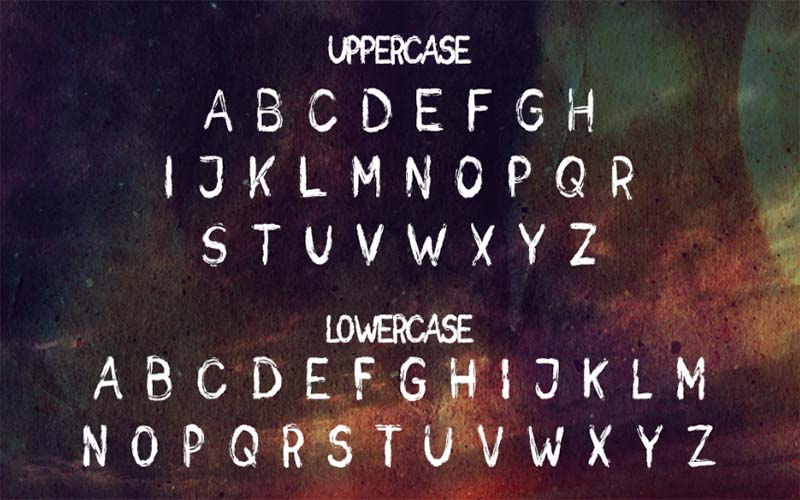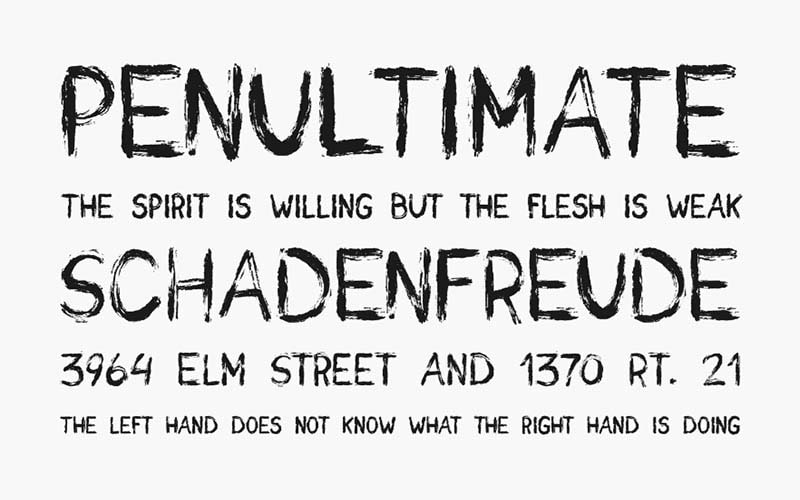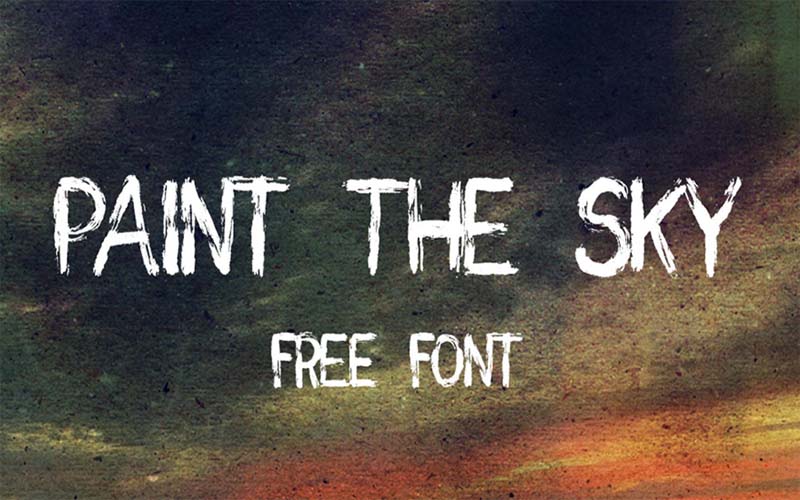
Paint the Sky Font is an elegant display sans serif typeface. Koen Van der Bliek took charge of designing and launching it initially. This is a handmade brush typeface.
The free font can be found in only one weight including regular. If you are looking for a free display font with a fresh and cool look, then you are right at the place.
This font has really authentic brushes that will make your design pop. So, you can use this brush font for various purposes such as poster crafting, fashion magazines, special cards, gaming titling, etc.
You can also use it for quotes and taglines. Because it has the potential to provide a sweet touch to any design. We believe that it will never break your expectations and certainly will not create a high-quality design.
Paint the Sky Font
The designer used a very light and hard stroke to create this font which makes it unique from other fonts. This is one of the great qualities that makes it famous in the font design industry.
That’s why this font is famous in the market because of its gay and amazing look. Many designers use it in their design projects. Because it presents bold letters that will give designer creations a lot of personalities.
It comes along with upper case & lower case, punctuation, numbers, symbols, and ligatures. after finding these features, we have great news for you that it is free for personal as well as commercial use.